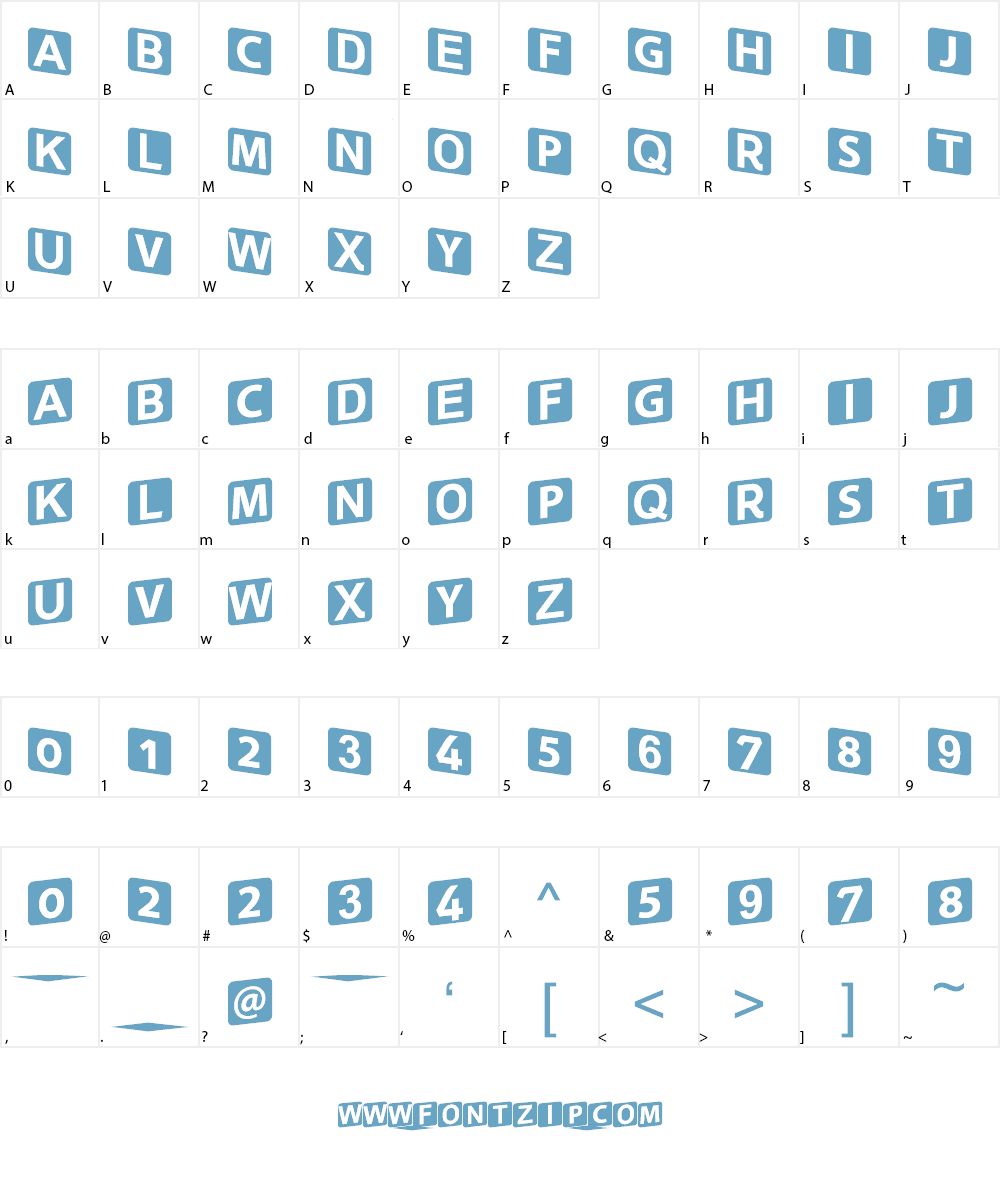
It is a font created to give the illusion that it is a dice didactic, for a logo for a nursery
Esta fuente fue creada para dar la ilusión de ser un dado didactico, para un logo de una guardería